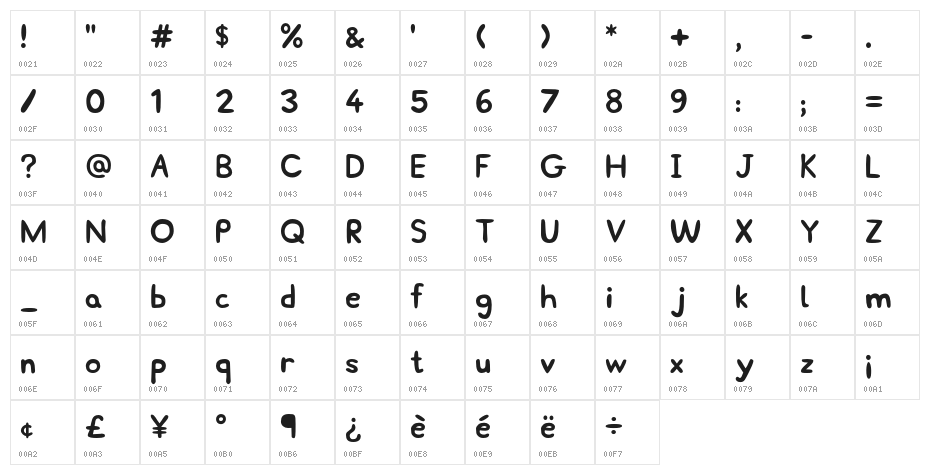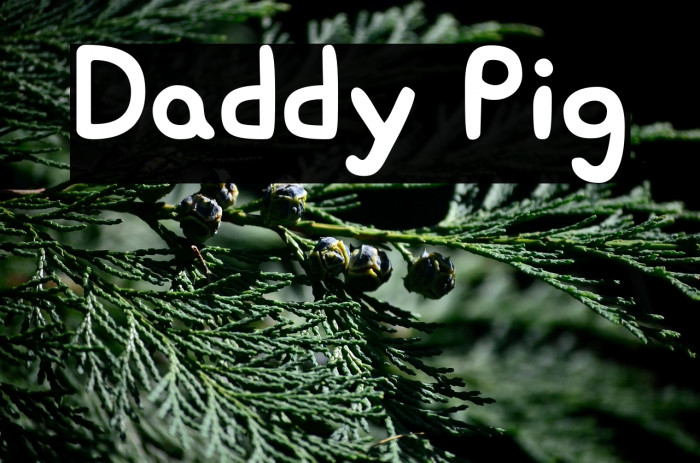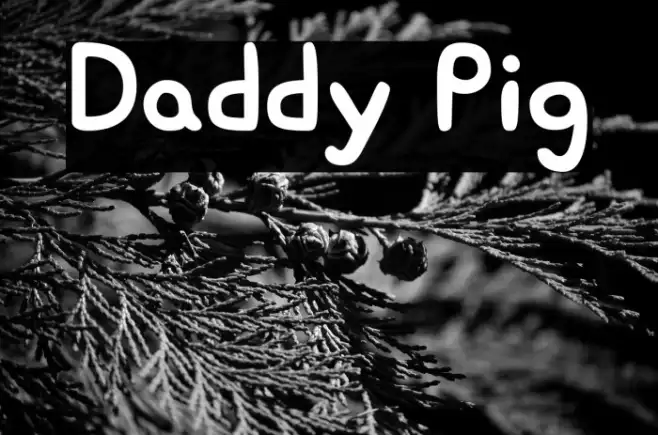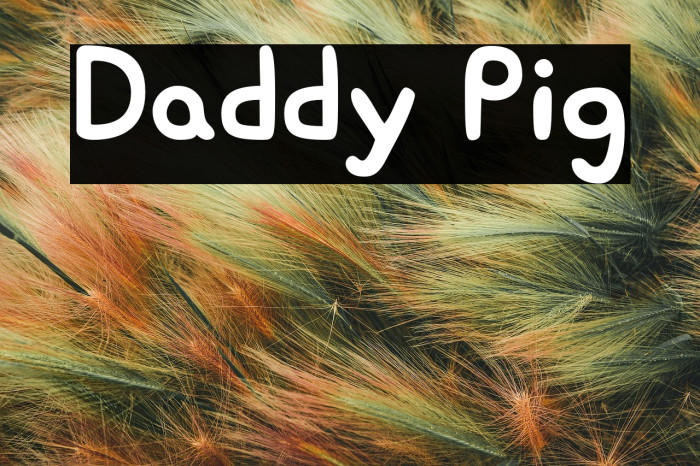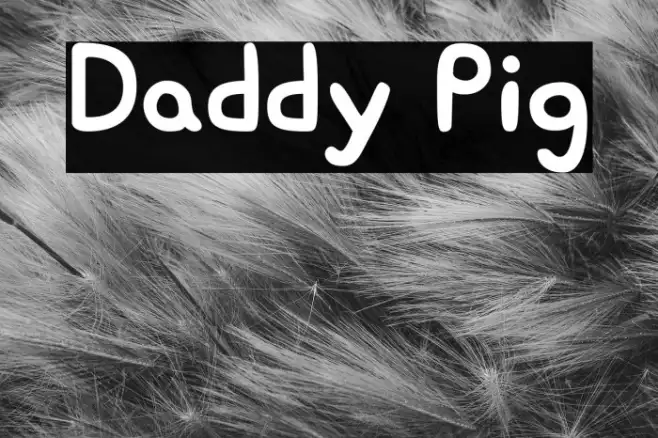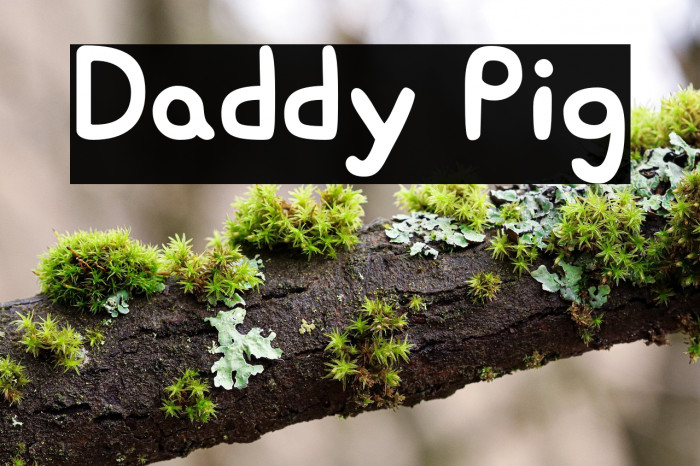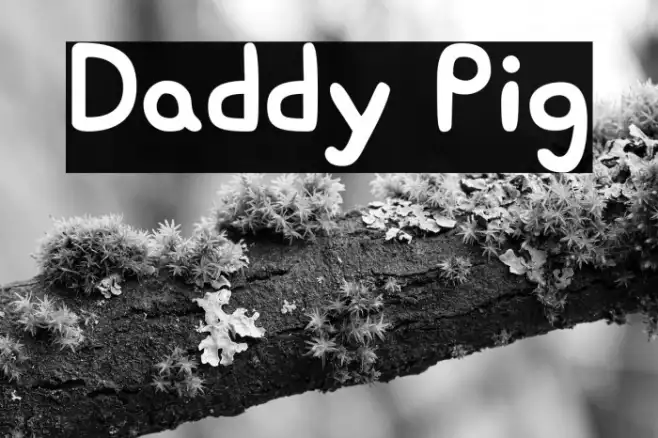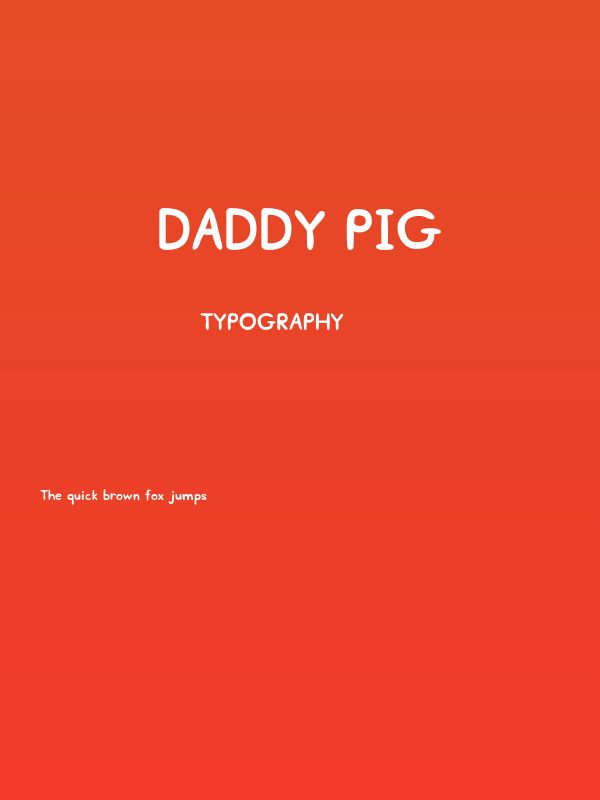
Daddy Pig Font
Daddy Pig Description
This playful and rounded font exudes a friendly and approachable vibe, characterized by its smooth curves and slightly irregular shapes. The letters are bold and have a consistent stroke width, giving it a uniform appearance. Its whimsical style makes it ideal for children's content or casual, fun projects. The font maintains a good balance between readability and style, making it versatile for various uses. The numbers and special characters are designed to match the playful aesthetic, ensuring consistency across all text elements.
| Use Case | Headlines, Logos, Children's content |
| Proposed Projects | Ideal for children's books, playful branding, casual invitations, and educational materials. |